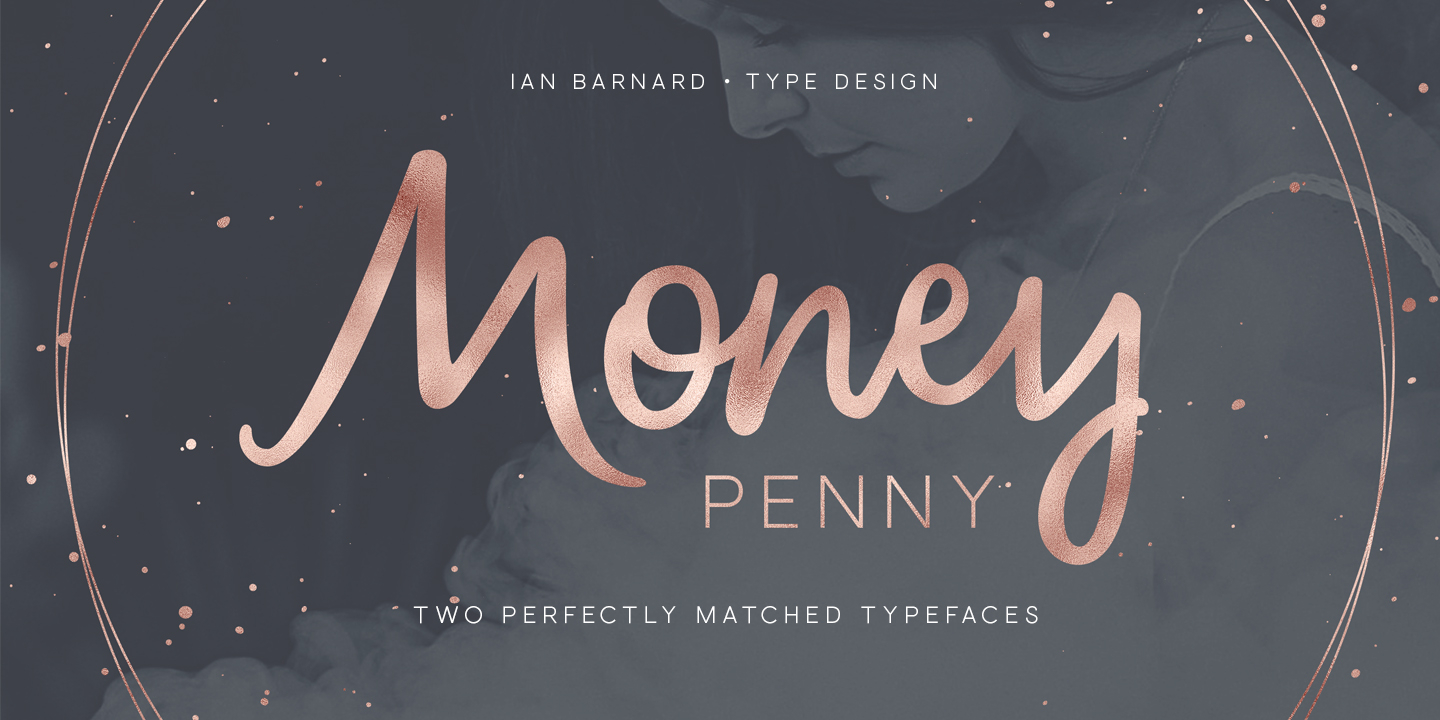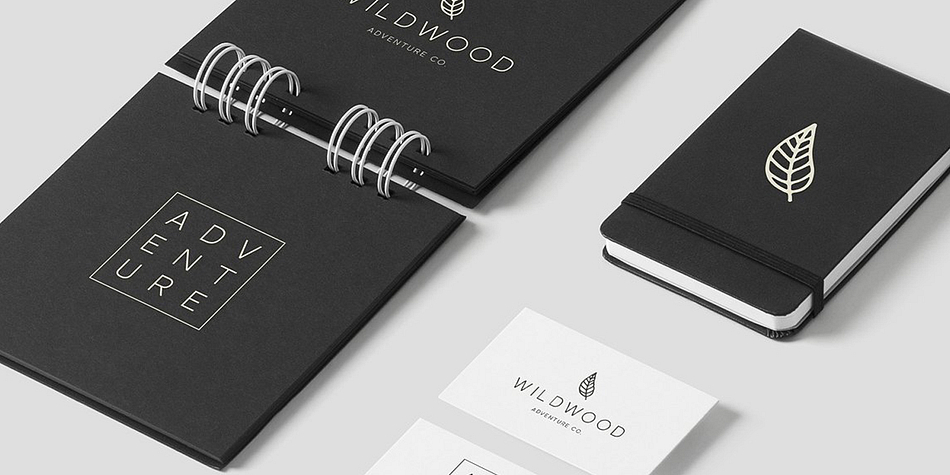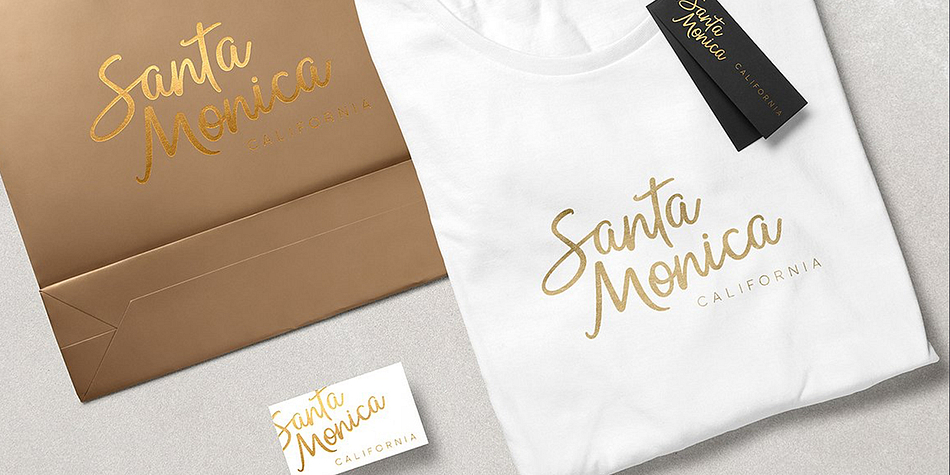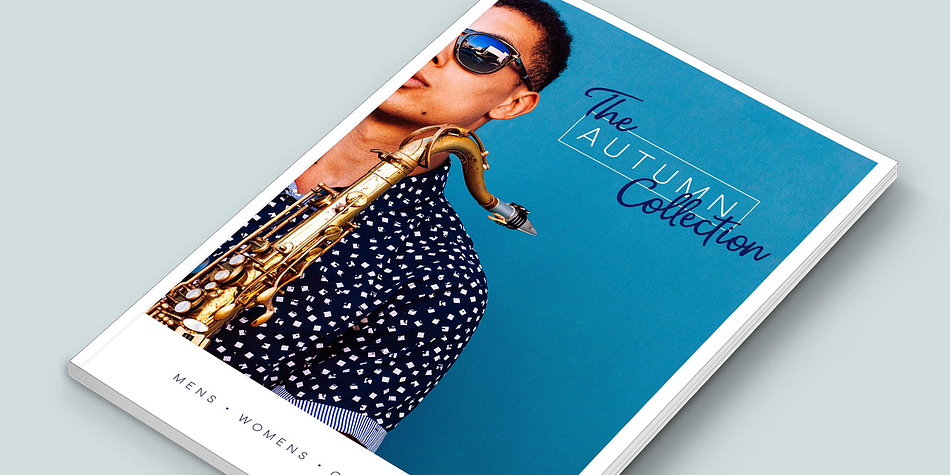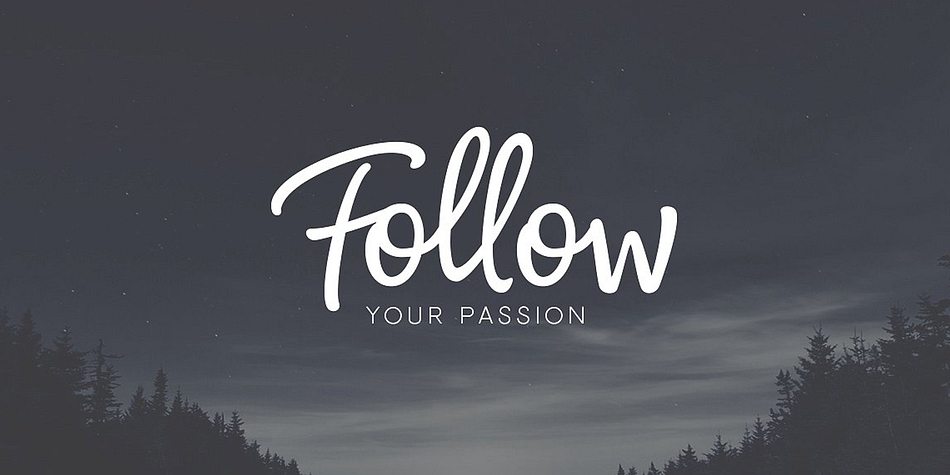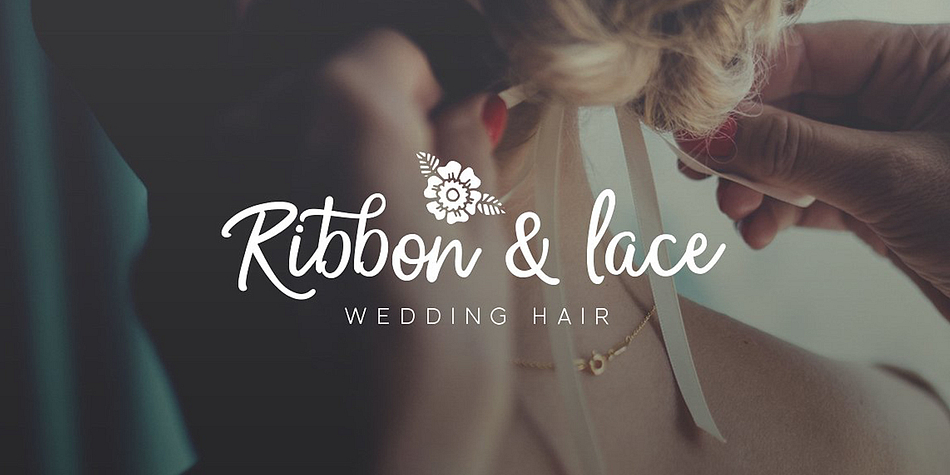
Money Penny is a display, script and display sans font family. This typeface has two styles and was published by Ian Barnard.
Introducing Money Penny. A perfectly paired font duet of free flowing brush script and a sophisticated sans-serif.